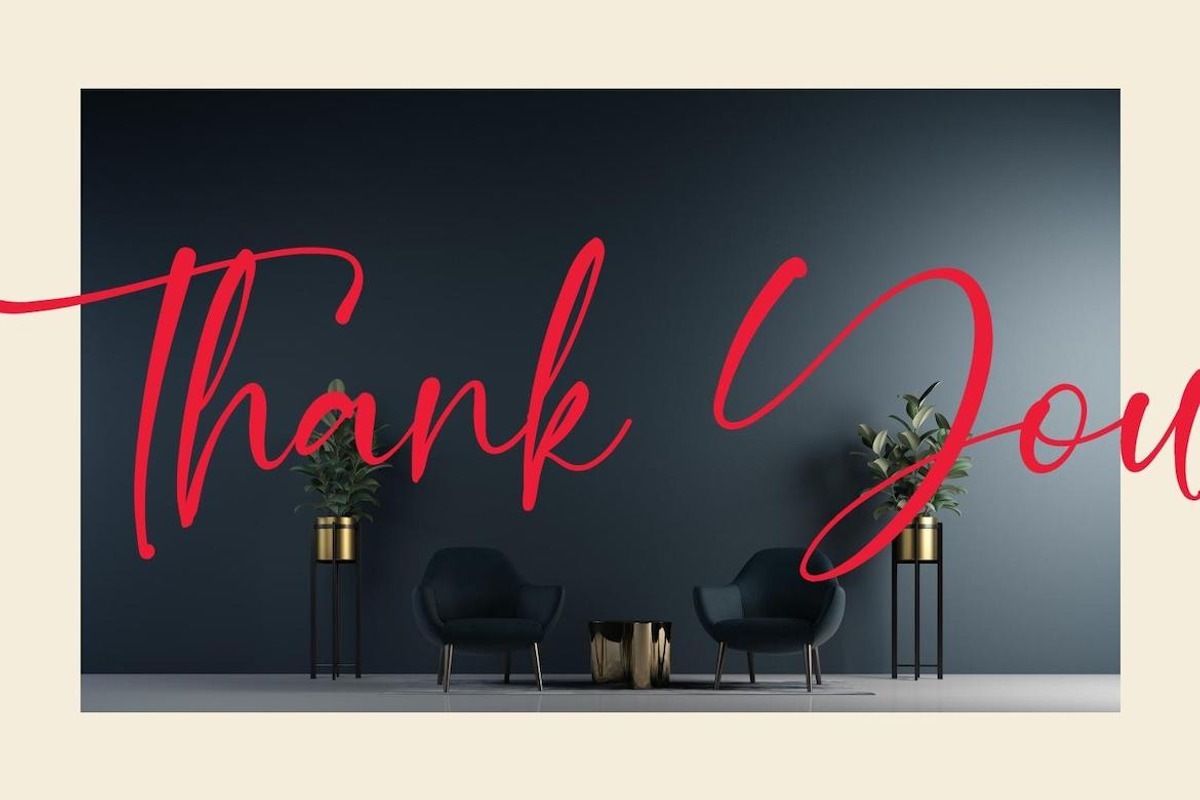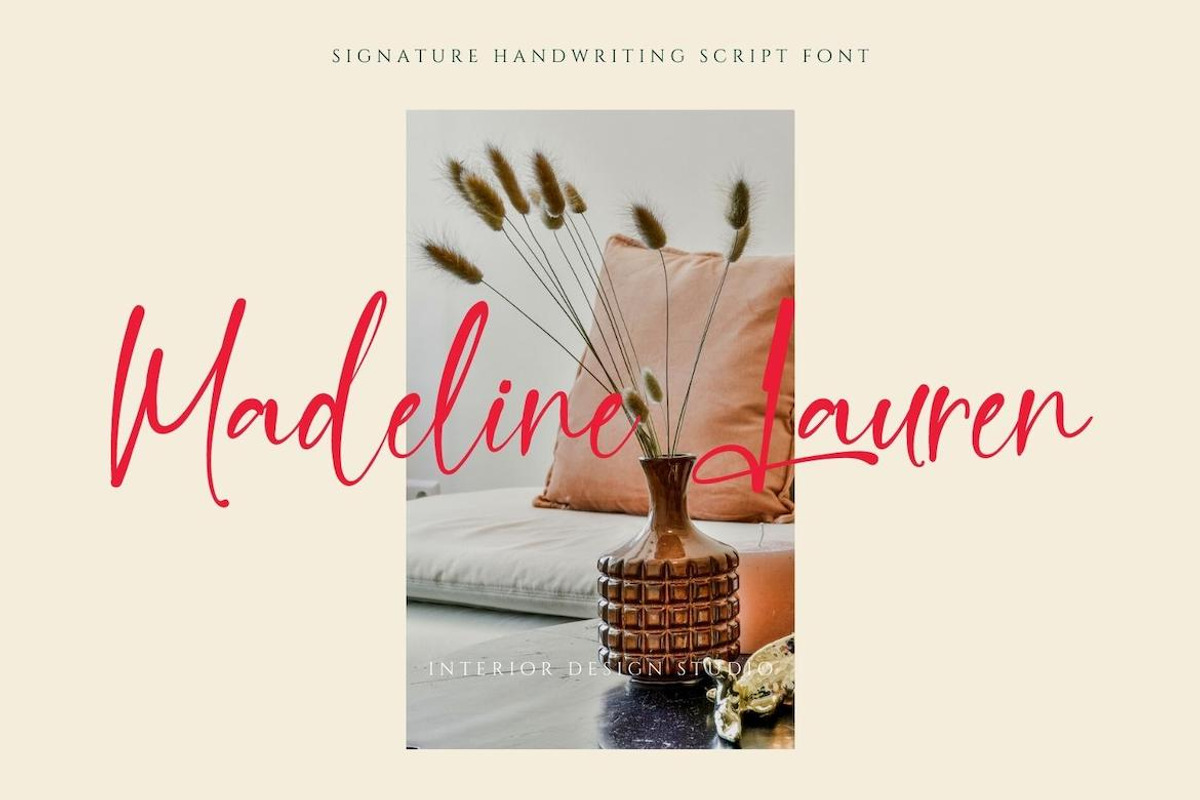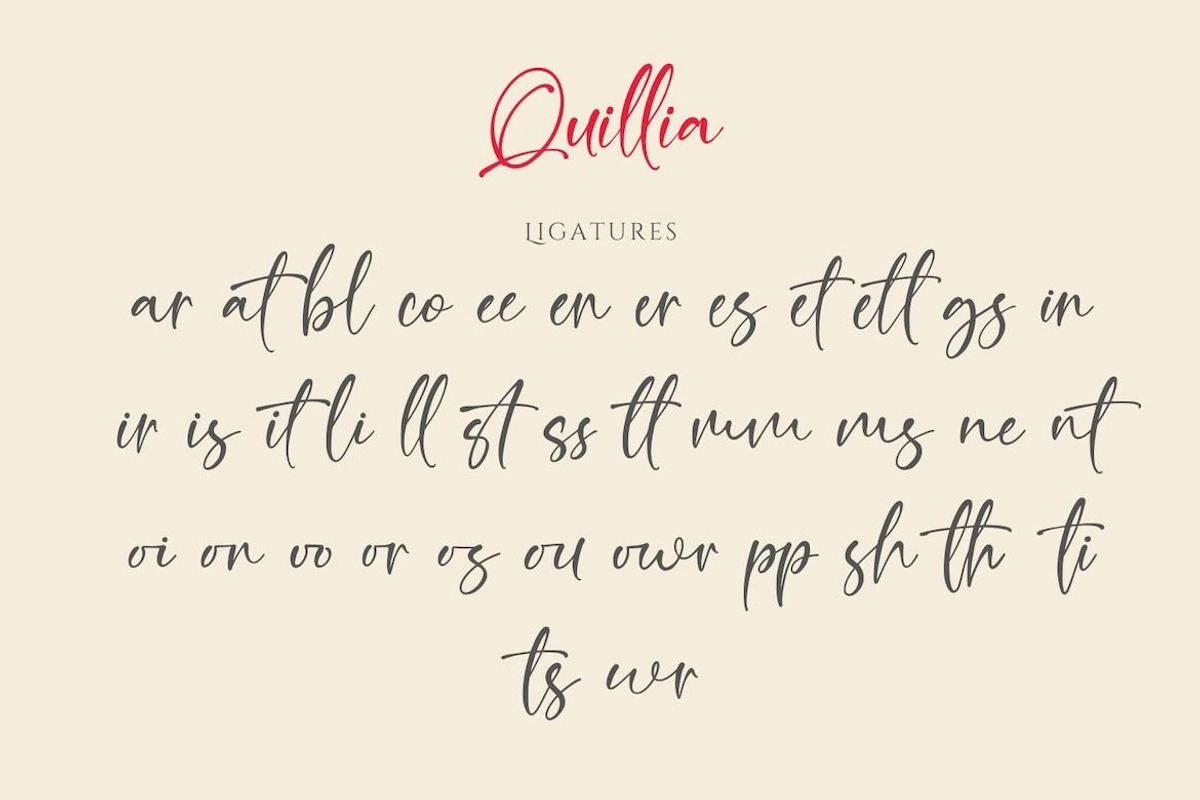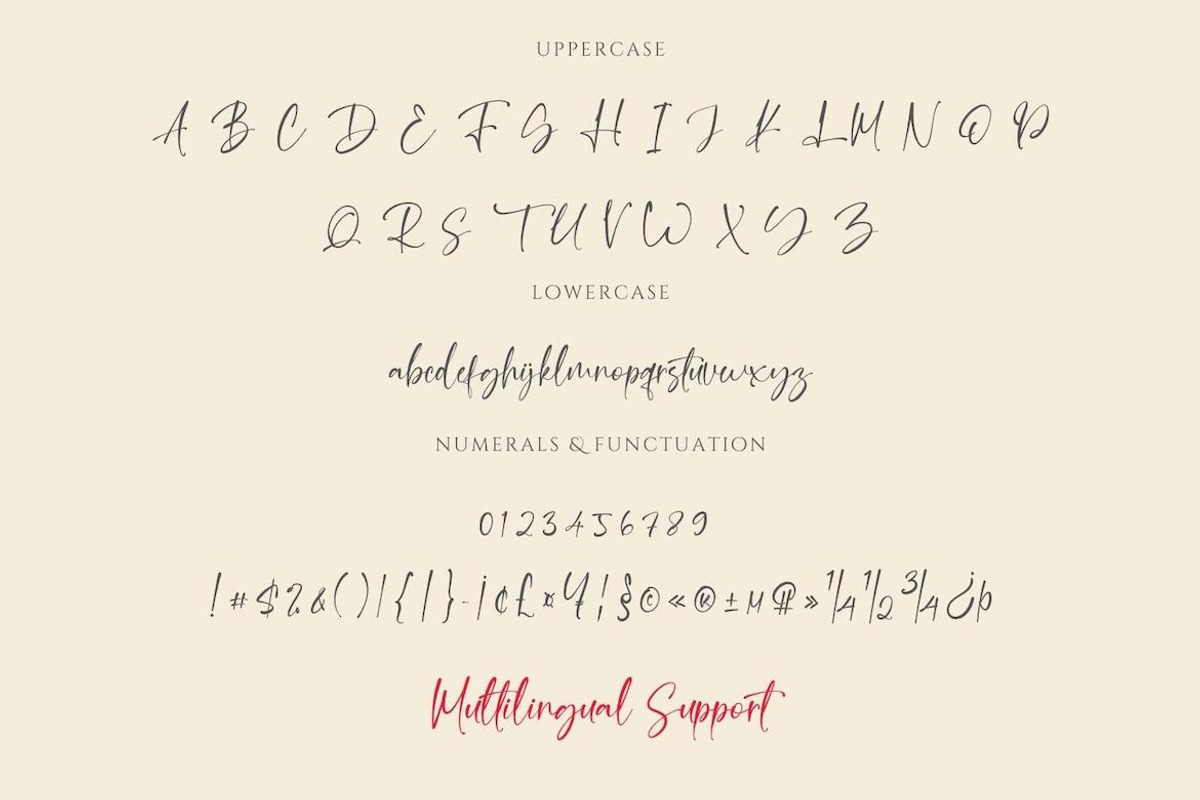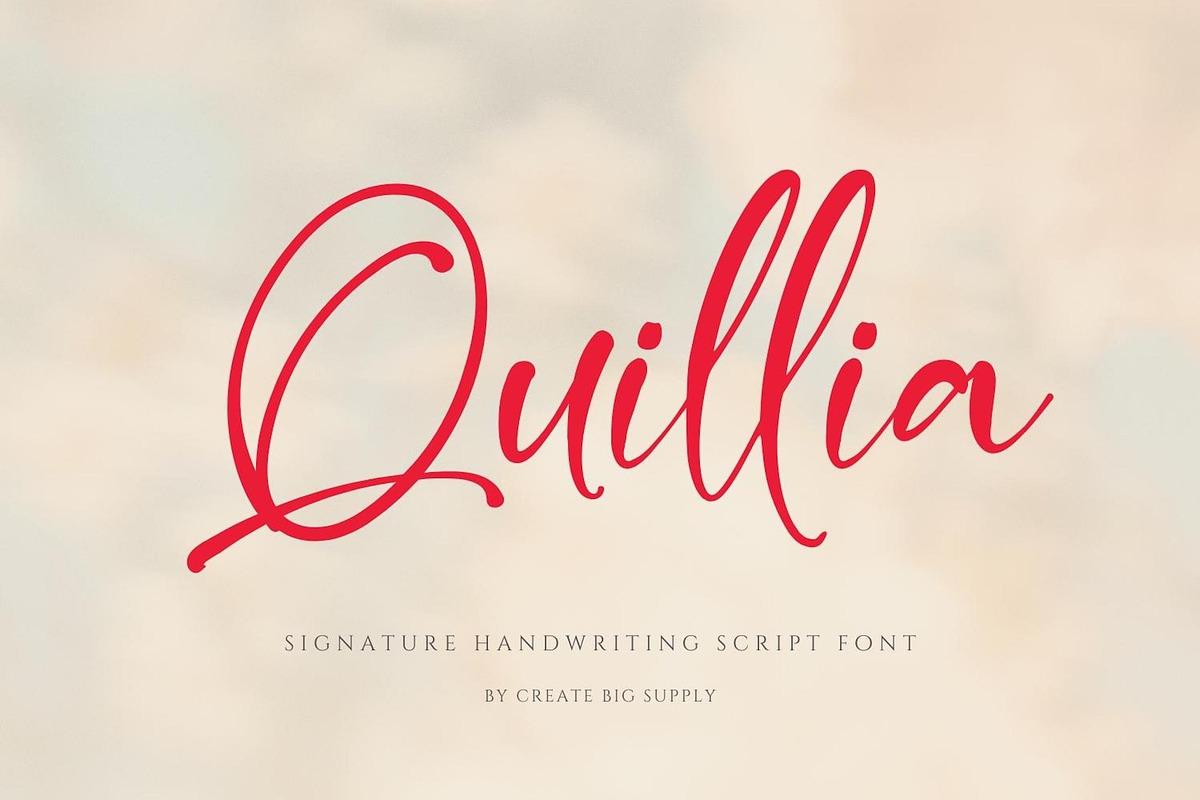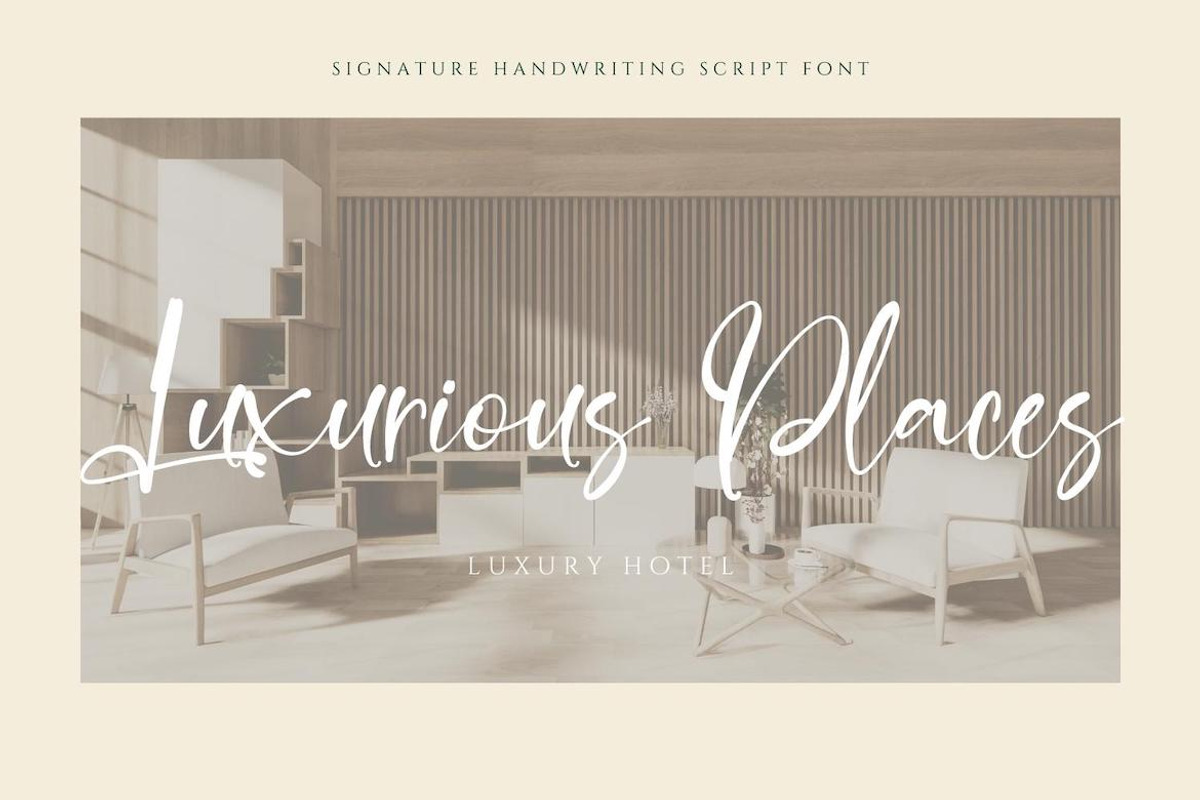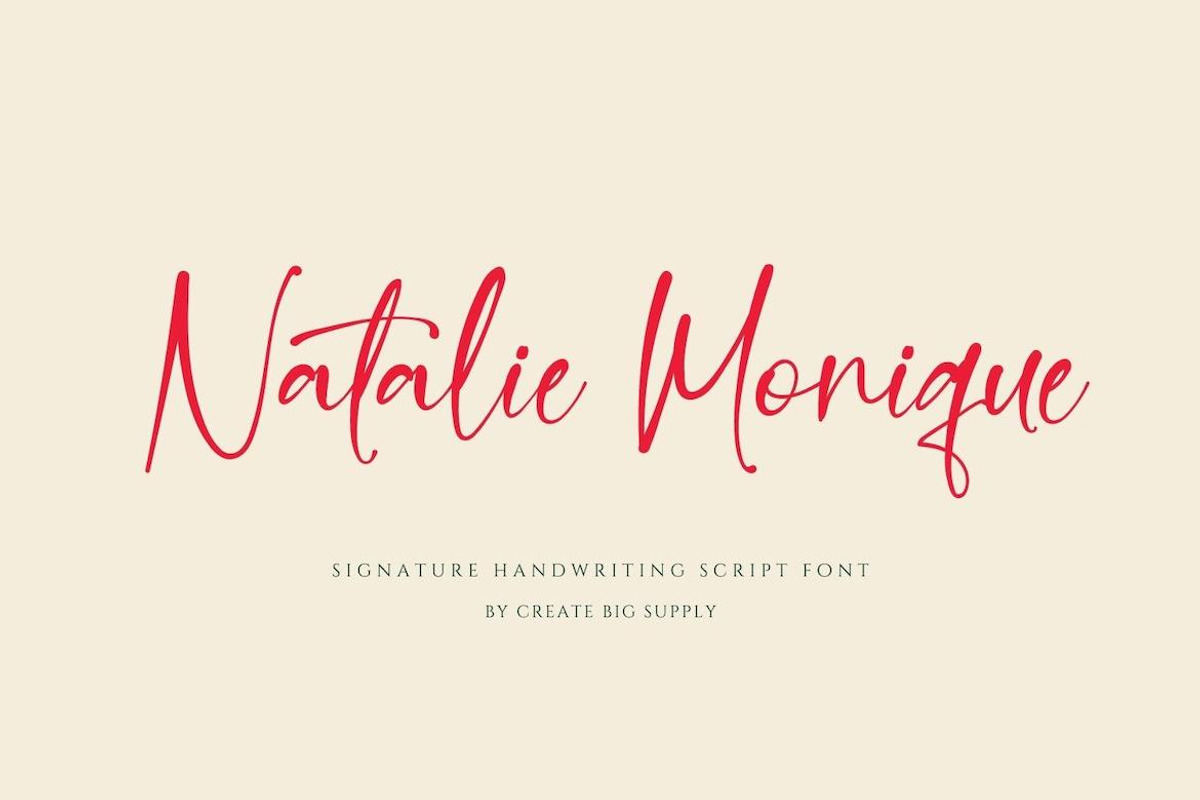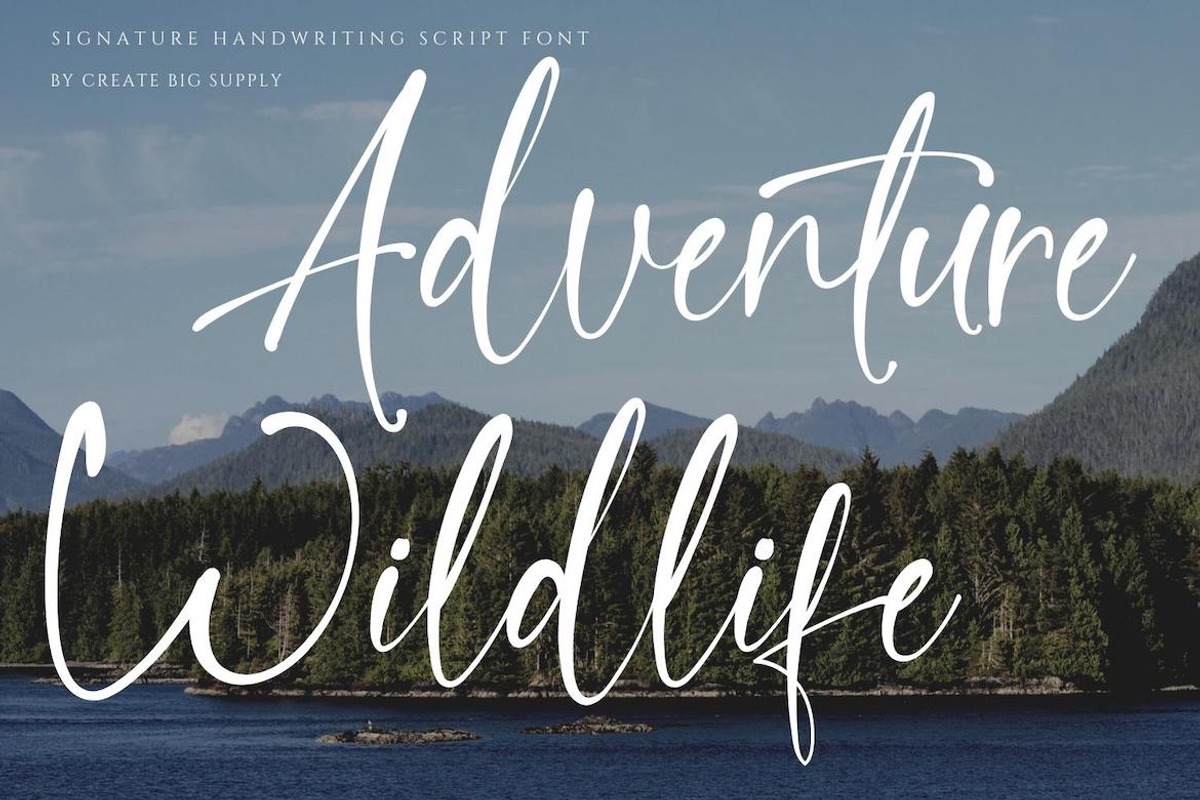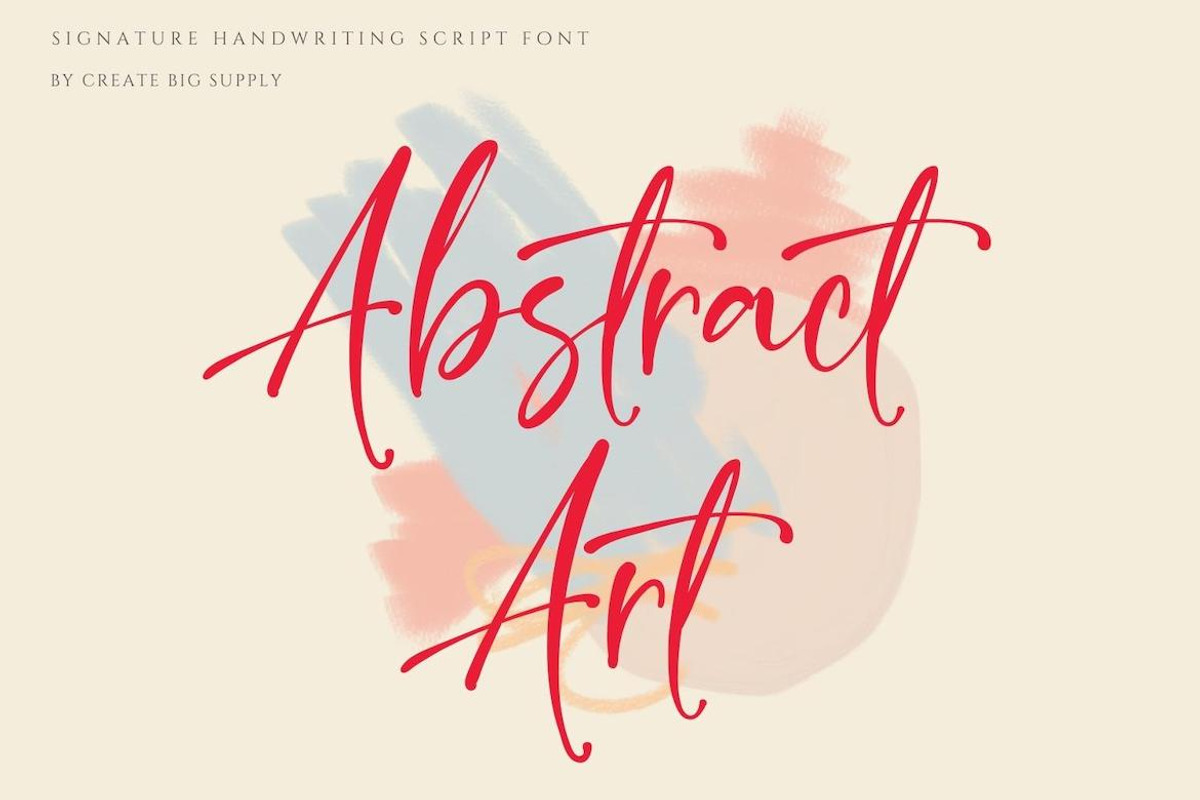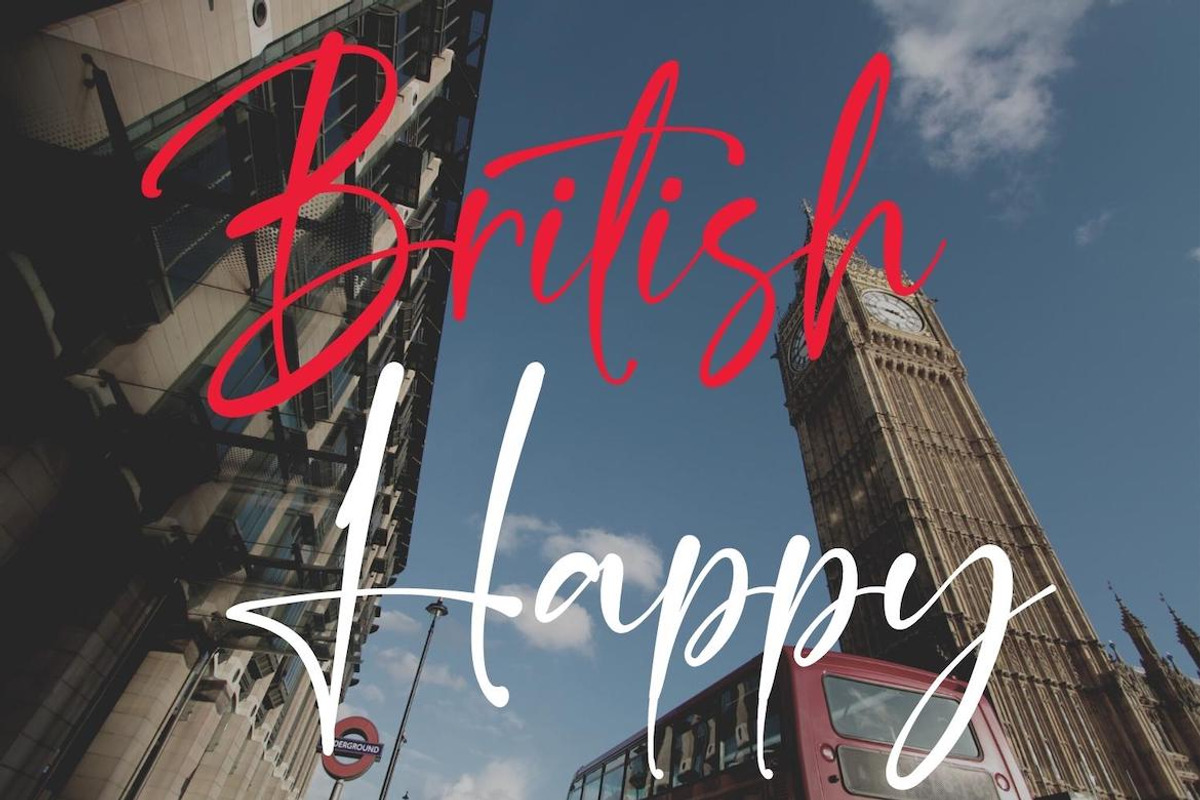
Quillia - Bold Signature Handwriting
Introducing Quillia, a bold signature handwriting script font that brings a touch of elegance and authenticity to your projects. With its natural signature style and bold strokes, Quillia adds a personalized and distinctive touch to your designs. Whether you're creating a logo, designing a signature, or working on various creative endeavors, this font is perfect for making a statement. It features both uppercase and lowercase letters, numbers, and punctuations, providing versatility and creative freedom. Quillia supports multilingual characters, allowing you to express your ideas in different languages. The font also includes ligatures and is PUA encoded for easy access to special characters. Download Quillia Signature Handwriting Script Font now and enhance your projects with a bold and expressive signature handwriting style.